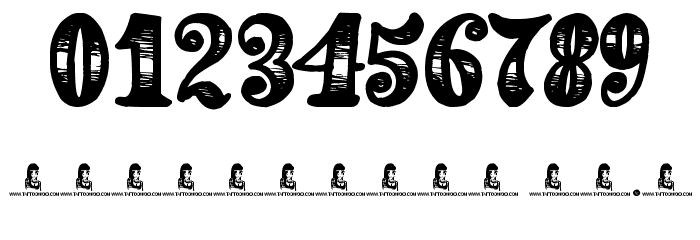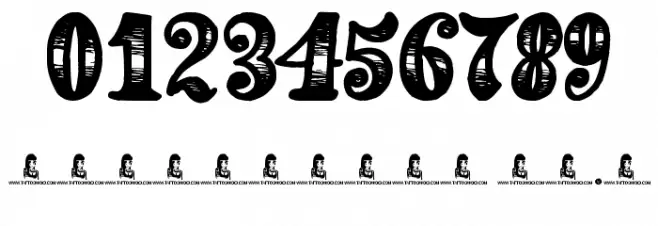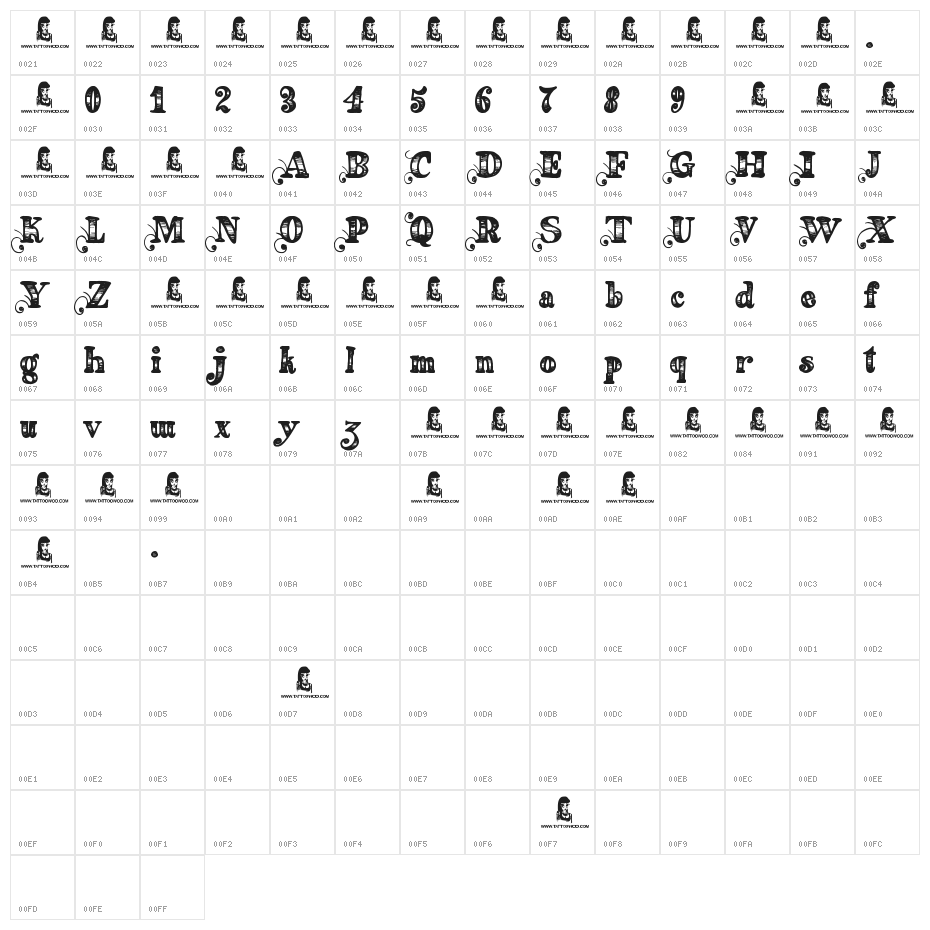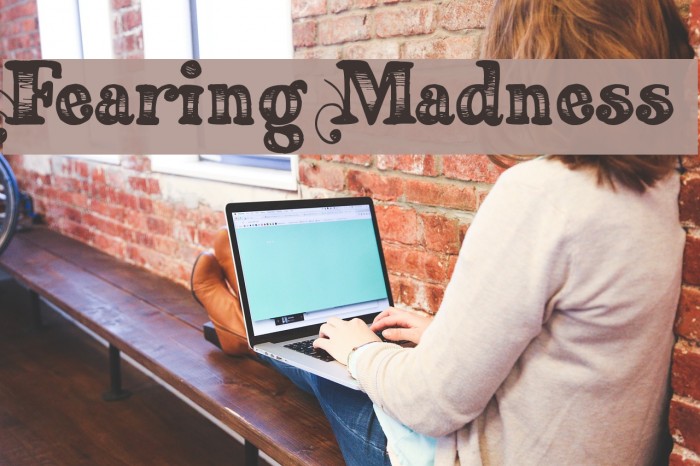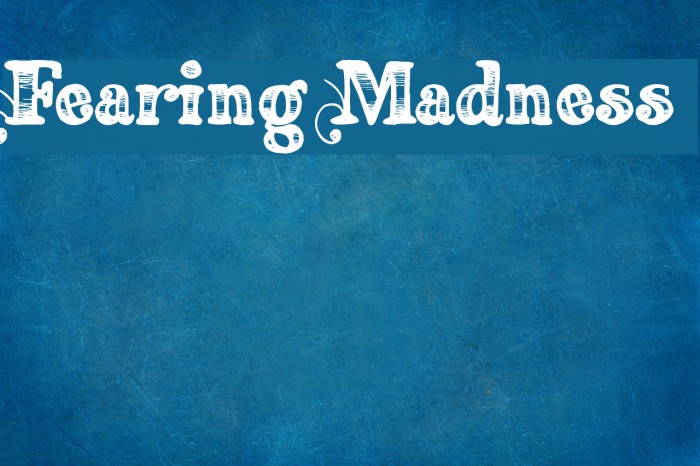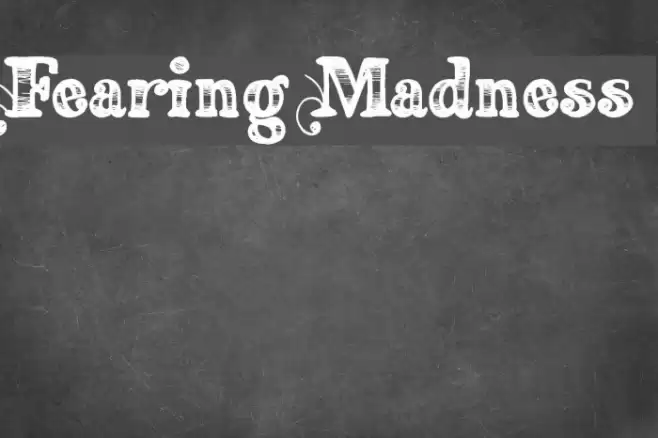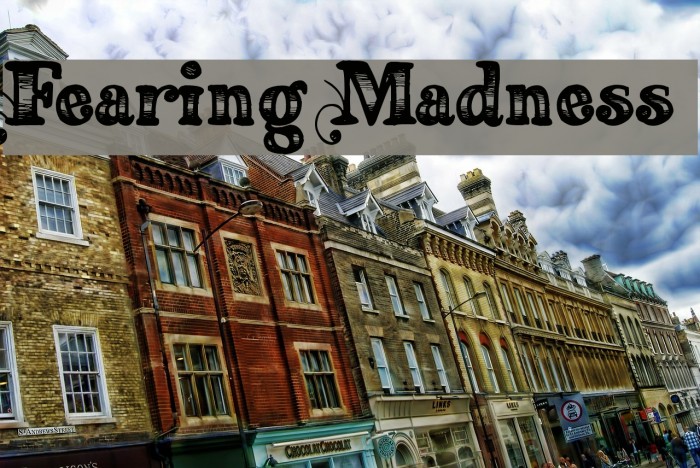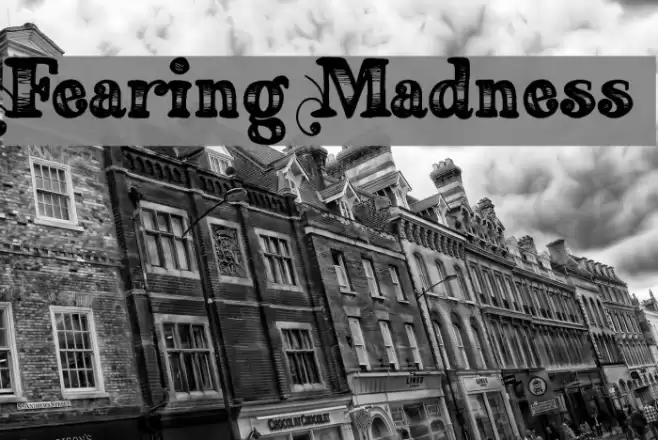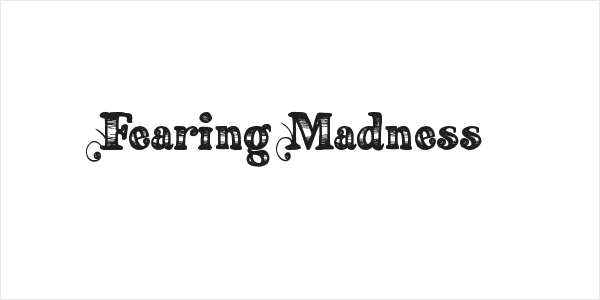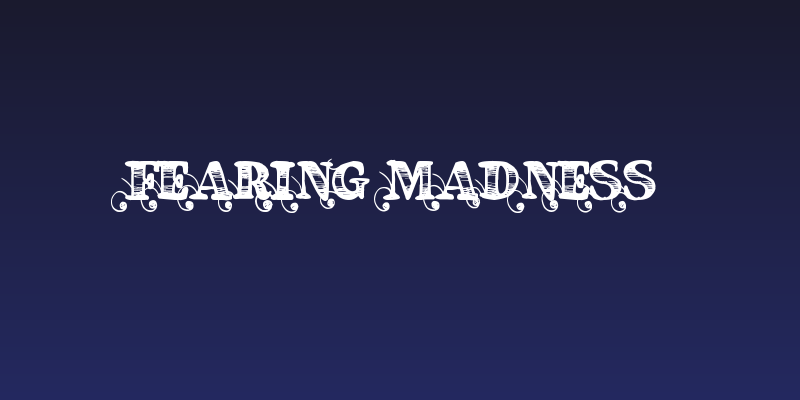
Fearing Madness Font
Fearing Madness Description
This font features a bold and decorative style with intricate swirls and flourishes extending from the characters, giving it a whimsical and slightly chaotic appearance. The uppercase letters are particularly ornate, with exaggerated serifs and embellishments that add a sense of drama and flair. The lowercase letters maintain a similar decorative style, though slightly more subdued, ensuring readability. The numbers are bold and consistent with the overall theme, featuring unique curves and lines. This font is ideal for projects that require a touch of eccentricity and creativity, making it perfect for artistic and unconventional designs.
| Use Case | Headlines, Logos, Artistic projects |
| Proposed Projects | Ideal for artistic posters, creative branding, unique invitations, and eye-catching headlines. |